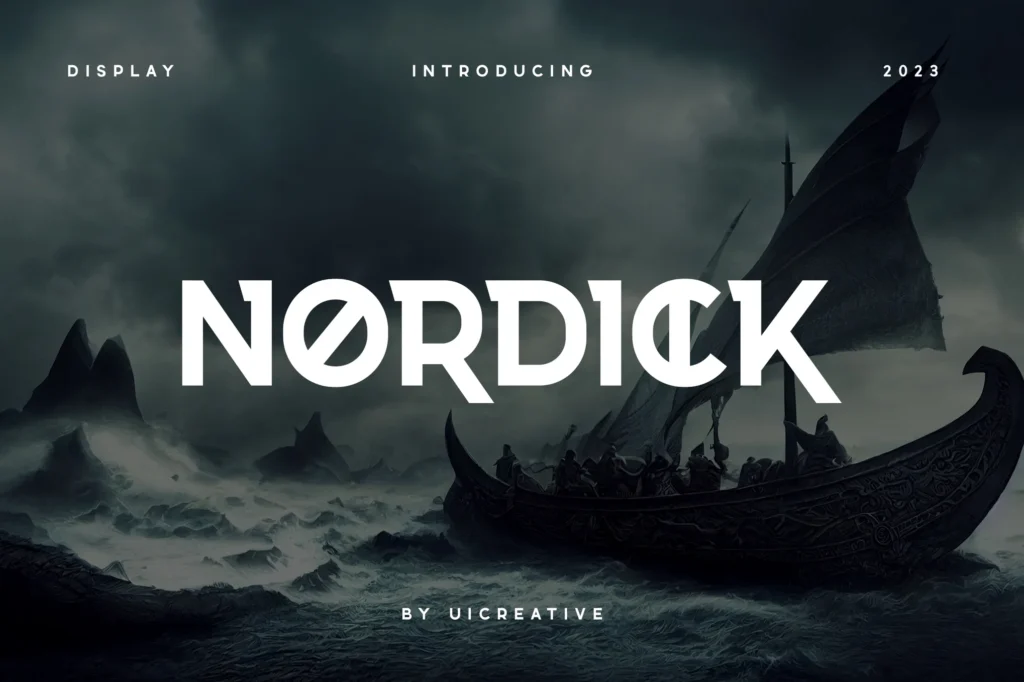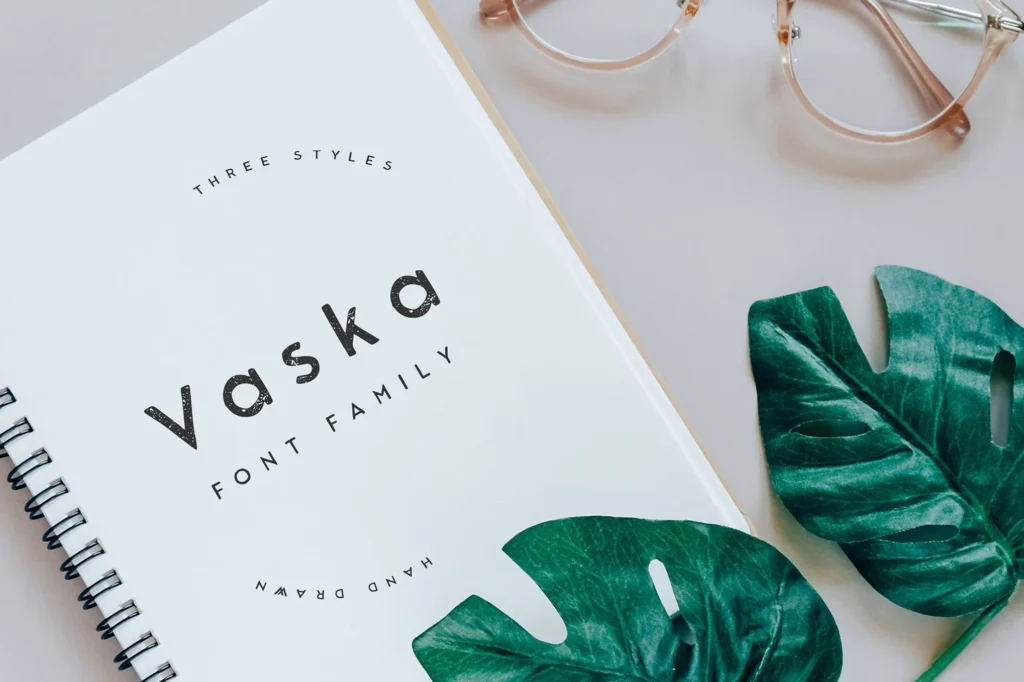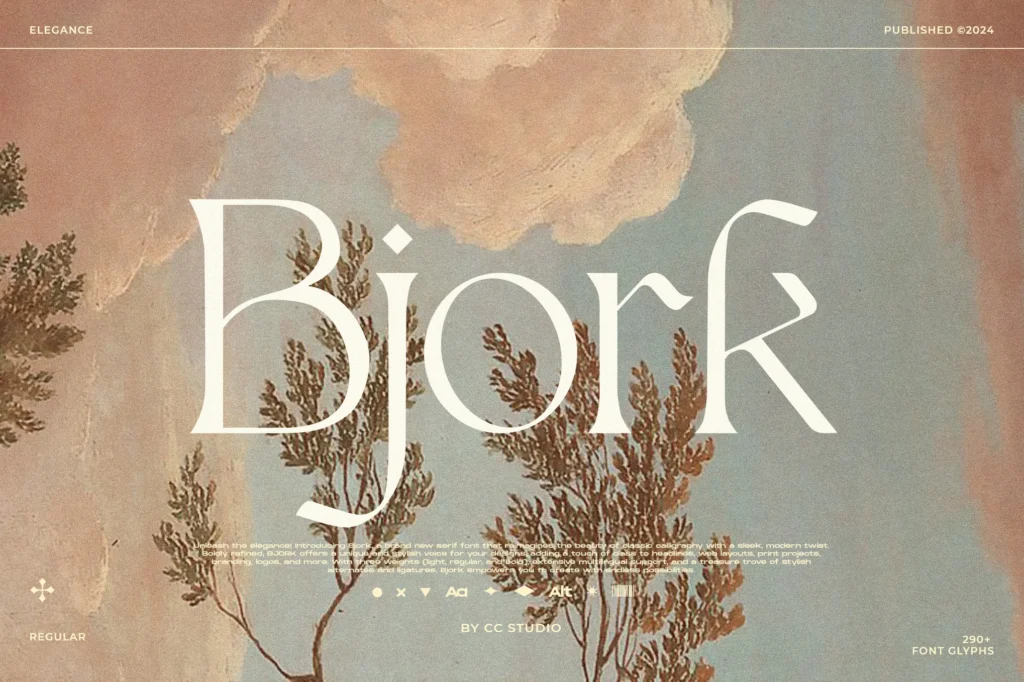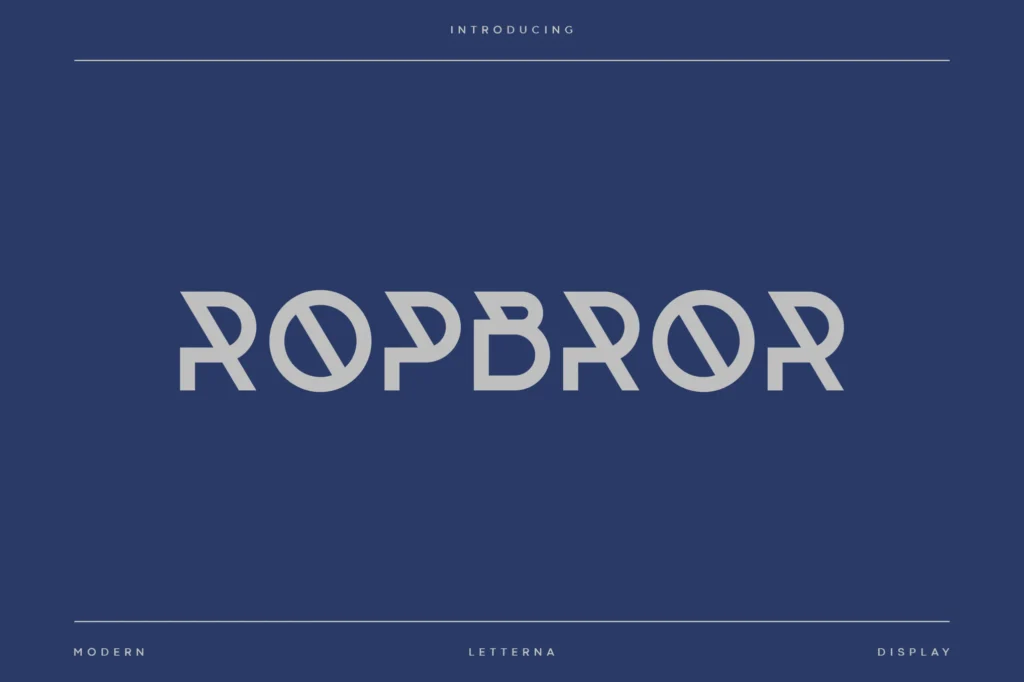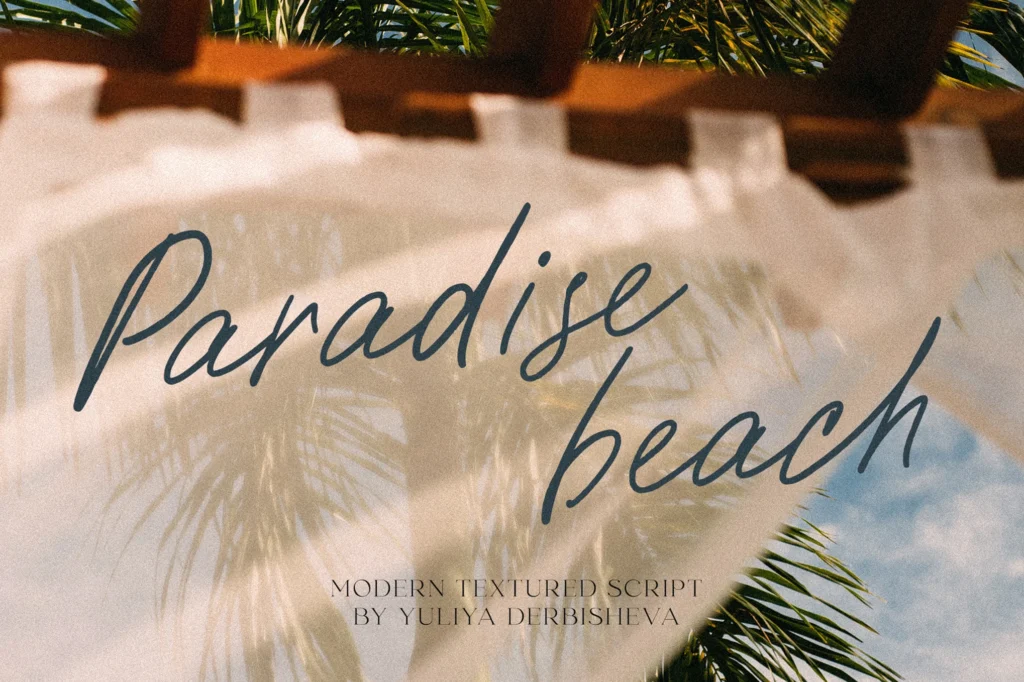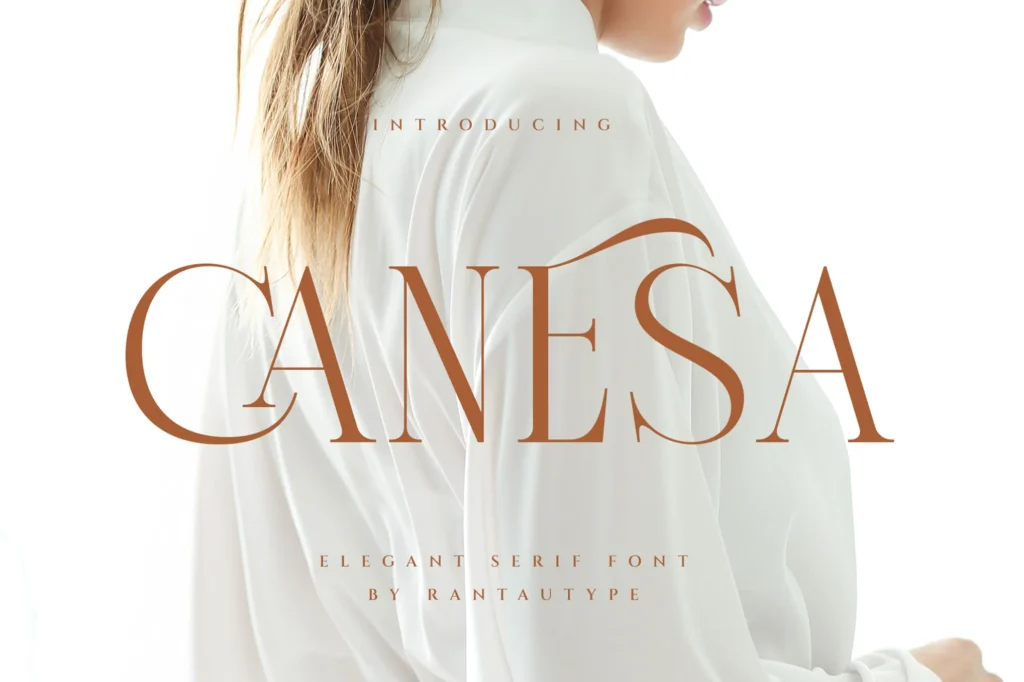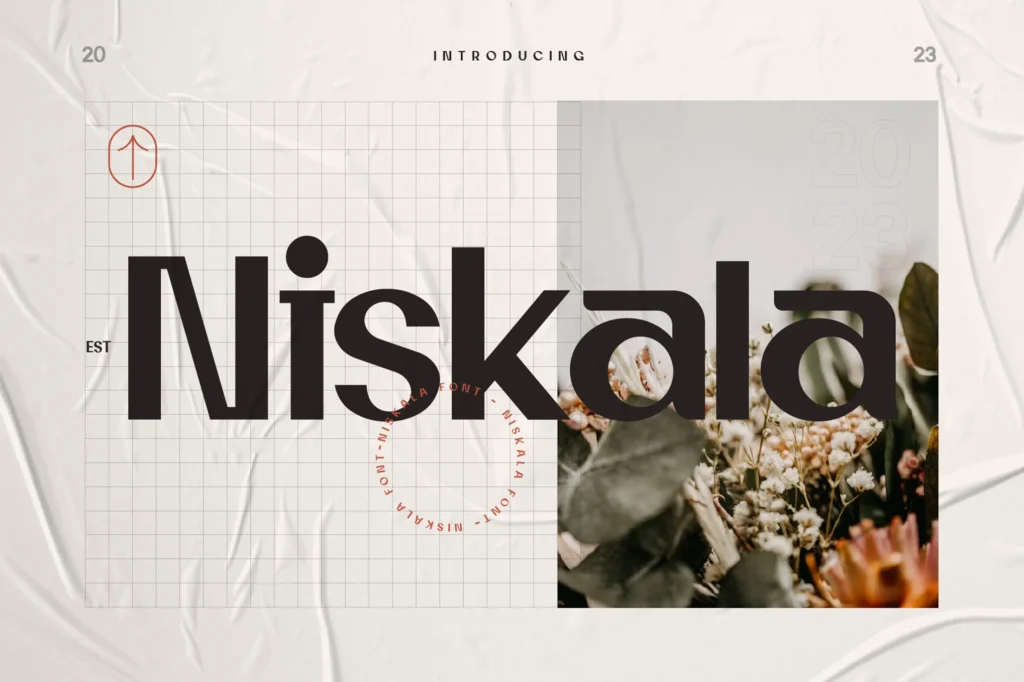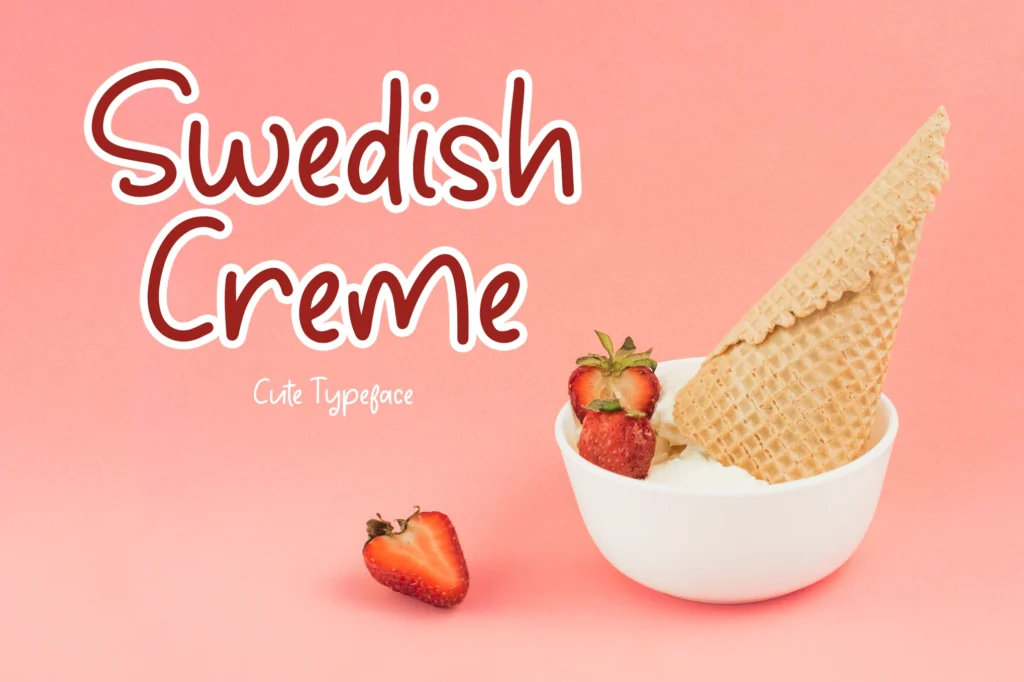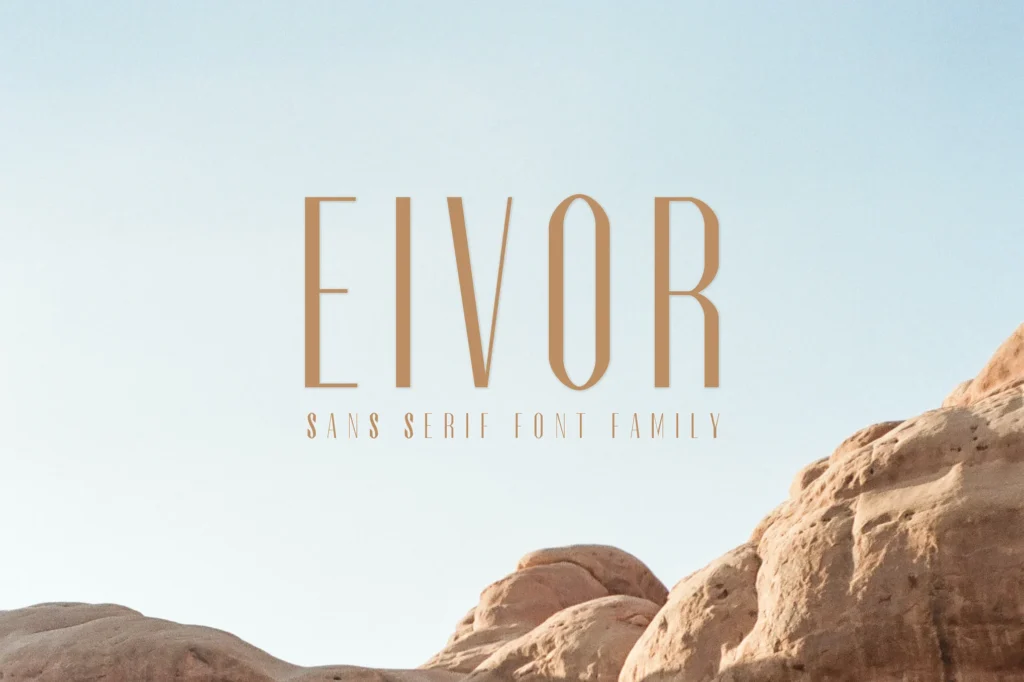
When we think about Scandinavian design, three words come to mind: clean, minimal, timeless. This same philosophy flows beautifully into typography. Swedish-inspired fonts often convey an understated elegance, characterized by balanced proportions, modern lines, and a sense of calm that makes them ideal for branding, web design, packaging, and editorial projects.
So if you’re looking to give your designs that Scandinavian touch, let’s dive into a handpicked list of 15+ stylish Swedish fonts that blend simplicity with creativity.
Why Choose Swedish Fonts?
Before we get into the list, let’s pause for a second. Why do designers love Swedish and Scandinavian-inspired fonts so much?
- Minimalism at its core – They strip away unnecessary details and focus on readability and elegance.
- Timeless appeal – These fonts don’t follow short-lived design fads; they remain stylish for years.
- Versatility – Works equally well for fashion branding, modern websites, cozy café menus, or luxury packaging.
- Nordic heritage – Many of these fonts are inspired by runes, folk art, and traditional Scandinavian lettering styles.
In short, Swedish fonts balance modern design with cultural soul, making them a must-have in every designer’s toolkit.
Best Swedish Fonts to Try in 2025
1. Nordick – Futuristic Display
Nordick feels tech-forward yet Scandinavian at its core. With bold uppercase letters and a clean structure, it’s made for futuristic branding and editorial headlines.
2. Norwalk – Folk-Inspired Geometry
Norwalk takes inspiration from Nordic folk patterns while keeping a modern edge. Its decorative alternates make it stand out in posters, logos, or packaging projects that want a hint of tradition without losing contemporary appeal.
3. Nordica – A Runic Revival
Nordica brings back the mysterious charm of ancient Nordic runes but polishes them with a modern design eye. It’s bold, slightly edgy, and perfect for projects like book covers, apparel branding, or themed websites.
4. Vaska – Handcrafted Warmth
Not all Swedish fonts are sharp and geometric—Vaska adds a human touch. With its handcrafted curves and organic style, it feels cozy and approachable. Perfect for eco-brands, artisanal packaging, or boutique shops.
5. Bjorn – Bold & Modern
Bjorn is one of those fonts that immediately grabs attention. Strong, all-caps, and versatile, it’s a favorite for designers creating logos, signage, or impactful editorial layouts. Available in multiple weights, it adapts beautifully to different contexts.
6. Bjork – Elegant Serif with a Twist
Bjork is where calligraphy meets modern design. It’s elegant, slightly decorative, and perfect for luxury branding or editorial work. If your project is about sophistication with character, this one’s a gem.
7. Ropbror – Futuristic Simplicity
Minimal yet futuristic, Ropbror is an all-caps font with sleek geometric construction. It works wonderfully in tech branding, websites, and modern product packaging.
8. Paradise Beach – Relaxed Script
Want something softer? Paradise Beach is a Swedish-inspired handwritten script that brings texture and personality. It’s casual yet stylish, making it ideal for social media graphics, lifestyle brands, or event invitations.
9. Wilderness – Raw & Natural
As the name suggests, Wilderness feels untamed but minimal. Its all-caps handwritten style makes it great for outdoor brands, nature-focused products, or rustic logos.
10. Canesa Elegant – Tall & Stylish
Canesa is all about luxury. With tall letterforms and refined serif details, it works beautifully for fashion, beauty, and high-end editorial designs. Think Vogue-style magazine layouts or luxury skincare packaging.
11. Niskala – Modern Readability
Niskala is a perfect balance between style and practicality. Clean, legible, and versatile, it’s a go-to choice for designers working on digital content, branding, or minimalist websites.
12. Skadina – Decorative Serif
Skadina adds a decorative touch to Scandinavian simplicity. With its graceful serifs, it’s fantastic for wedding invitations, premium packaging, or creative headlines.
13. DarkSword – Gothic Edge
DarkSword channels Nordic folklore with a gothic twist. It’s dramatic, bold, and perfect for game titles, posters, or branding that needs intensity.
14. Almond – Artistic Modernism
Almond blends artistry with modern design. Slightly quirky but refined, it’s fantastic for creative logos, unique product labels, and lifestyle branding.
15. Artisa – Minimal Branding Font
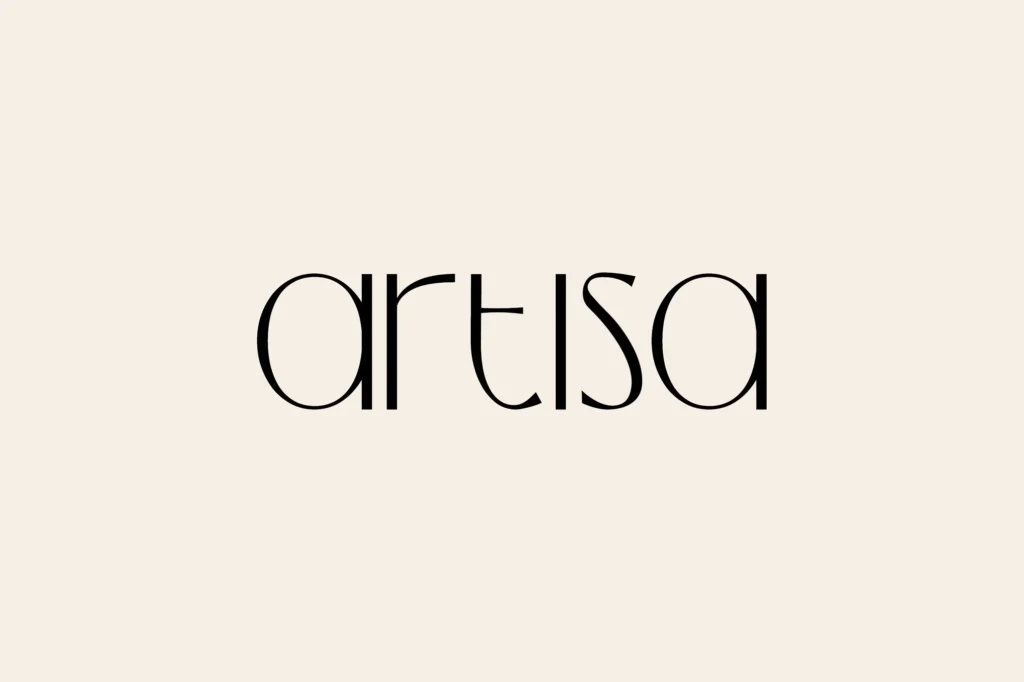
Artisa is calm, balanced, and ultra-modern. It’s designed for branding projects that want to communicate confidence without clutter. Perfect for startups, beauty brands, and sleek websites.